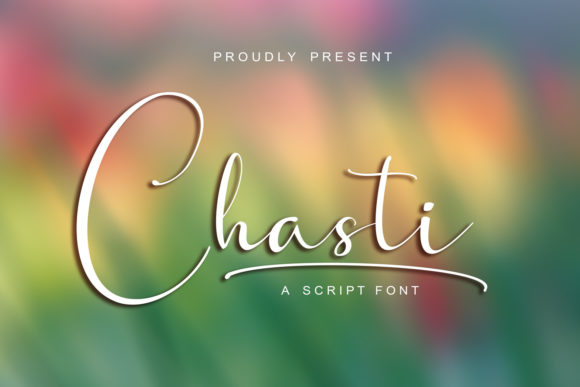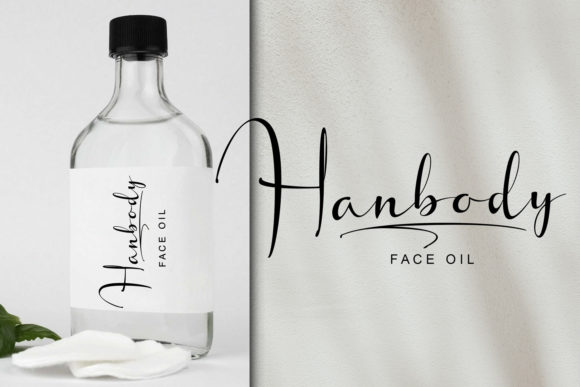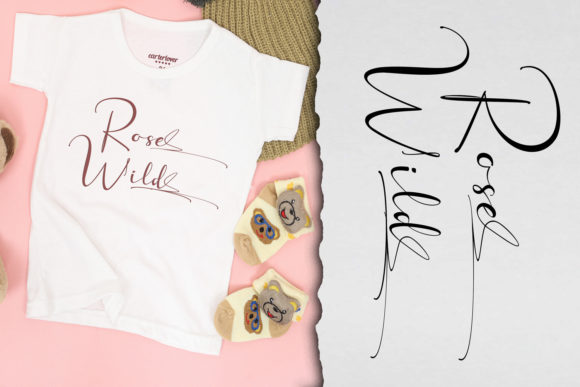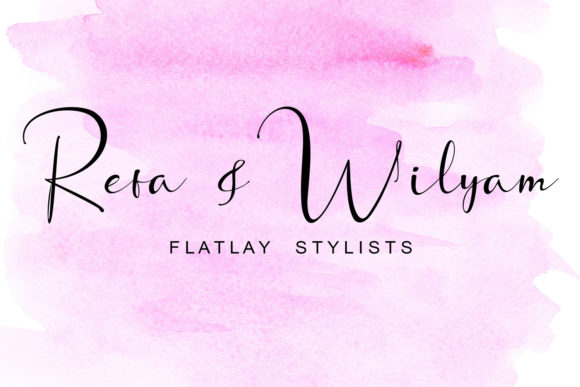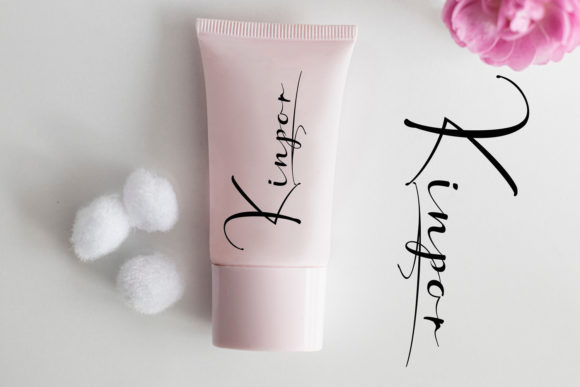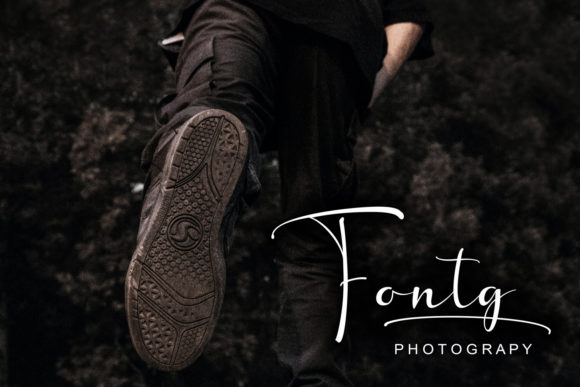
Introducing Chasti Font: Elevate Your Designs with Elegance and Sophistication
In the world of typography, a font can make all the difference in the success of a design project. For designers and crafters looking to add a touch of elegance and sophistication to their work, Chasti Font is an exceptional choice. This stunning hand-lettered script font boasts a unique, natural dry-brush feel that will instantly elevate your projects and set them apart from the rest.
The Unique Characteristics of Chasti Font
Chasti Font is characterized by its distinctive dry-brush feel, which gives it a hand-crafted, organic look. This unique feature makes it perfect for designs that require a personal touch, such as handmade, food & beverage, and artisan goods. The font’s natural, flowing lines and curves evoke a sense of sophistication and refinement, making it ideal for creating elegant branding and headlines.
Swashes and Glyphs: The Perfect Combination
One of the standout features of Chasti Font is its remarkable swashes. These decorative elements can be used to add a touch of flair to your designs, making them more visually appealing and engaging. With Chasti Font, you can combine the font with its swashes to create truly stunning designs. The font is PUA encoded, which means you can access all of the glyphs and swashes with ease, giving you complete creative control over your projects.
Chasti Font is a versatile typeface that can be used for a wide range of design projects. Some of the most popular uses for this font include:
- Elegant branding: Create sophisticated logos and branding materials that will help your business stand out.
- Headlines and titles: Use Chasti Font to create eye-catching headlines and titles for your blog posts, articles, and social media feeds.
- Handmade and artisan goods: Add a personal touch to your designs for handmade and artisan goods, such as labels, packaging, and marketing materials.
- Food and beverage: Create elegant menus, labels, and branding materials for food and beverage businesses.
- Quotes and invitations: Use Chasti Font to create beautiful quotes, invitations, and other personal projects.
- T-shirts and apparel: Create stunning designs for t-shirts and other apparel using Chasti Font.
- Social media: Take your social media feed to the next level with elegant and sophisticated designs created using Chasti Font.
Why Choose Chasti Font?
With so many fonts available, why choose Chasti Font? Here are just a few reasons why designers and crafters love this typeface:
- Unique and distinctive: Chasti Font has a one-of-a-kind dry-brush feel that will set your designs apart.
- Elegant and sophisticated: This font is perfect for creating refined and elegant designs that will impress your clients and audience.
- Versatile: Chasti Font can be used for a wide range of design projects, from branding and headlines to quotes and social media.
- Easy to use: The font is PUA encoded, making it easy to access all of the glyphs and swashes.
| Font Name | Chasti Font |
| Author | Rezastudio |
In conclusion, Chasti Font is an exceptional choice for designers and crafters looking to add a touch of elegance and sophistication to their work. With its unique dry-brush feel, remarkable swashes, and versatility, this font is perfect for a wide range of design projects. Whether you’re creating elegant branding, headlines, or social media designs, Chasti Font is sure to impress. So why wait? Download Chasti Font today and take your designs to the next level!